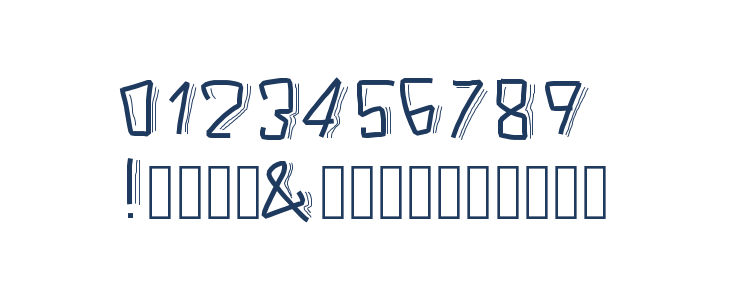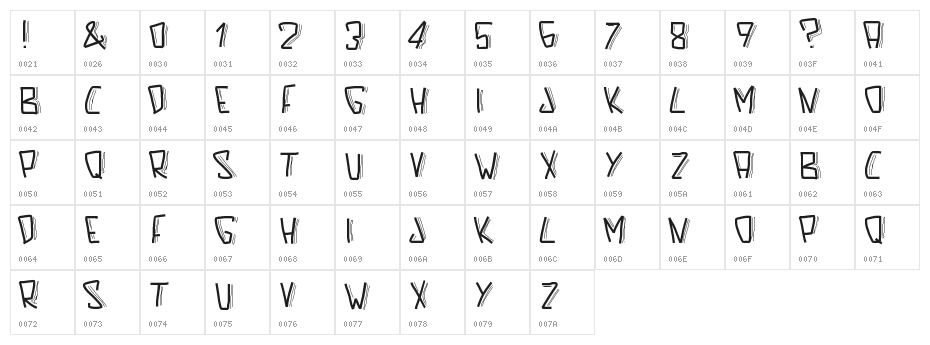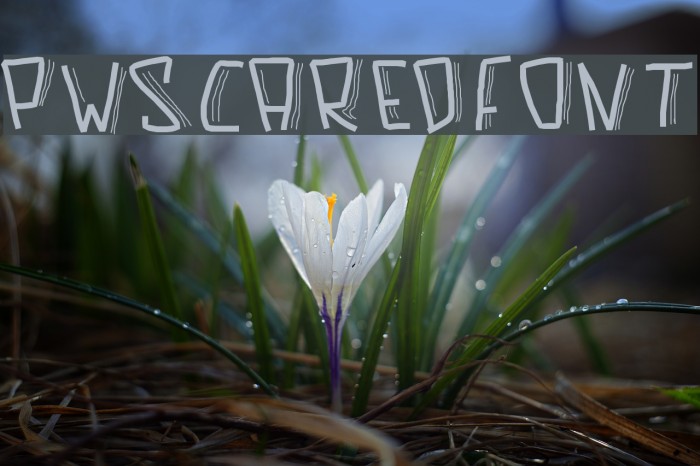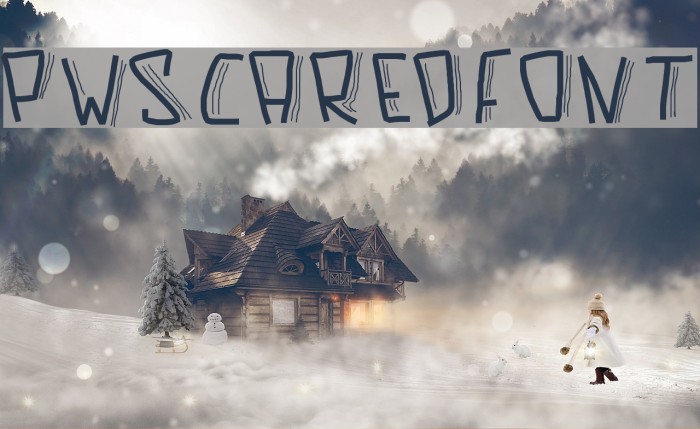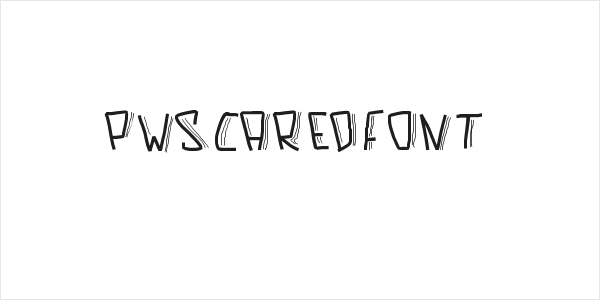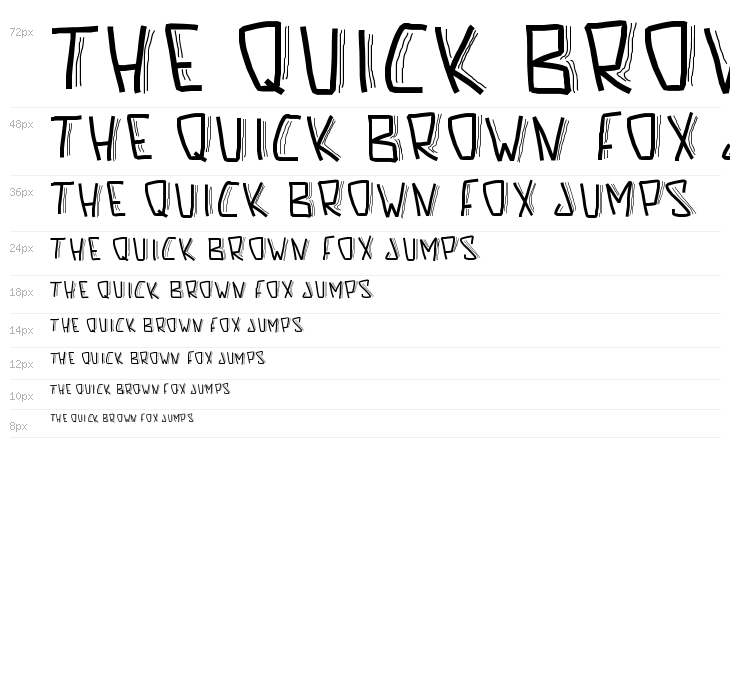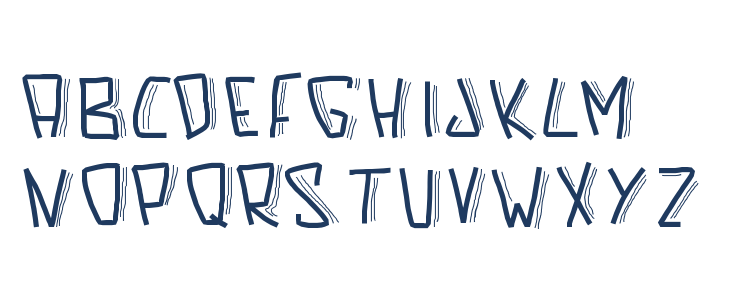
PWScaredFont Font
PWScaredFont Description
This font features a unique, distressed appearance with irregular, jagged edges that give it a hand-drawn, eerie feel. The characters are bold and slightly condensed, with a high level of contrast between the thick and thin strokes. The overall design is reminiscent of a horror or thriller theme, making it ideal for projects that require a spooky or unsettling aesthetic. The uppercase and lowercase letters maintain a consistent style, while the numbers and special characters complement the alphabet with the same unsettling vibe.
| Use Case | Headlines, Posters, Themed Invitations |
| Proposed Projects | Ideal for Halloween-themed designs, horror movie posters, spooky invitations, and any project requiring a chilling atmosphere. |